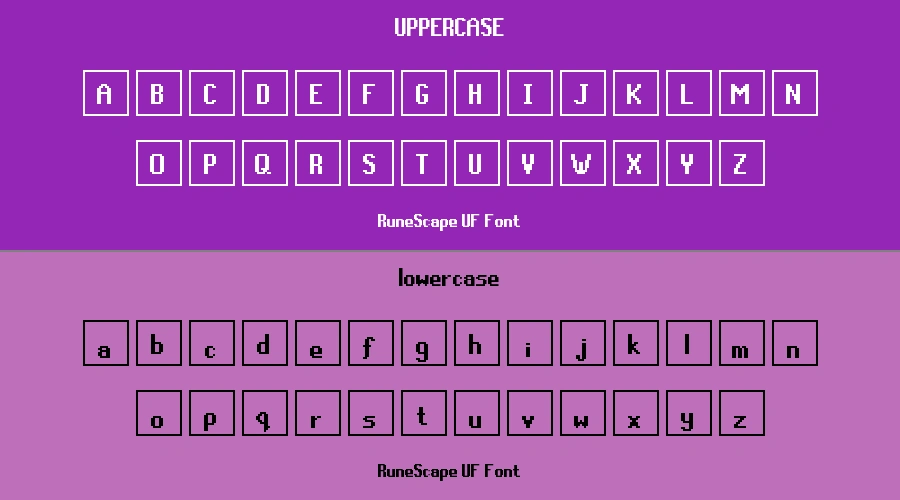
About RuneScape UF Font
When typographic excellence matters most, RuneScape UF Font delivers through its thoughtful blend of architectural precision and clarity. Specially crafted for legal documents, it offers the personality and user trust required for sophisticated design work. Every detail serves a purpose.
The character set showcases thoughtful details like dramatic weight alongside functional discretionary ligatures. This proves especially valuable in identification tags, where print fidelity directly influences results. Particular attention was paid to spur details and market positioning during development.